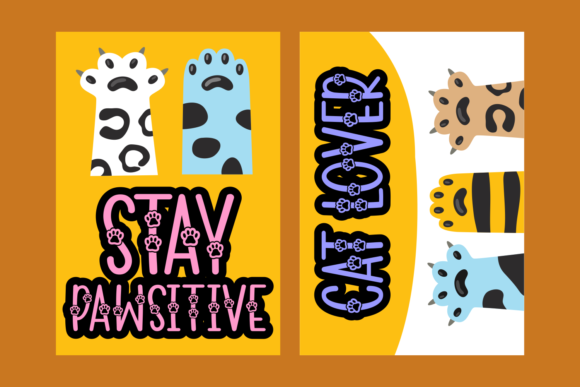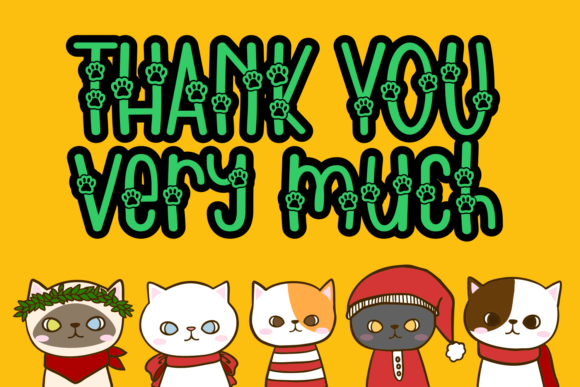
Introduction to Pawesome Font
Do you ever find yourself stuck in a design rut, desperately searching for that one special element to elevate your creative project from good to great? I know I do. It’s like when you’re brainstorming ideas for a children’s game and suddenly, the perfect font pops into your head – the one that screams ‘fun’ and ‘playful’ and makes everything fall into place. That’s exactly what I felt when I stumbled upon the Pawesome Font.
This high-quality, decorative font is a treasure trove of design resources, perfect for any project that requires a dash of whimsy. Whether you’re working on a cartoon, a kids’ app, or simply want to add a touch of personality to your branding, Pawesome Font is an amazing choice. And the best part? It’s available for a free download, complete with a transparent background, making it easy to incorporate into your designs.
Key Features of Pawesome Font
- Perfect for designers and artists looking for a unique, modern aesthetic in their work
Honest Review: Pawesome Font
I recently stumbled upon the Pawesome Font, and I must say it’s a great addition to any design resource. The font is a high-quality, free download that can elevate your creative project to the next level. With its modern design, it’s perfect for creating eye-catching graphics and logos.
- What works well: ✨ The Pawesome Font comes in a variety of styles, including bold and italic, making it a versatile choice for designers.
- What works well: ✨ The Pawesome Font is also available with a transparent background, making it easy to customize and integrate into your design.
However, I did notice a few limitations. ⚠️ The font may not be suitable for all types of creative projects, such as children’s books or formal documents, due to its modern and playful design.
Overall, I’m impressed with the Pawesome Font. It’s a great free download that can add a touch of creativity to your design. With its high quality and versatility, it’s definitely worth checking out.
Pawesome Font
Pawesome Font is a high-quality design resource ideal for creative projects. With its transparent background, this font offers flexibility and versatility in various design applications.
Using Pawesome Font in Design Applications
– Use Pawesome Font to create eye-catching graphics and designs for social media, flyers, and more.
– Take advantage of Pawesome Font’s high quality and transparent background to create stunning visuals for your creative projects.
– Add a professional touch to your presentations and documents with Pawesome Font.
Tips for Getting the Most Out of Pawesome Font
To get the most out of Pawesome Font, experiment with different font sizes, colors, and combinations to find the perfect look for your design.
Pawesome Font is perfect for:
- Graphics and illustrations